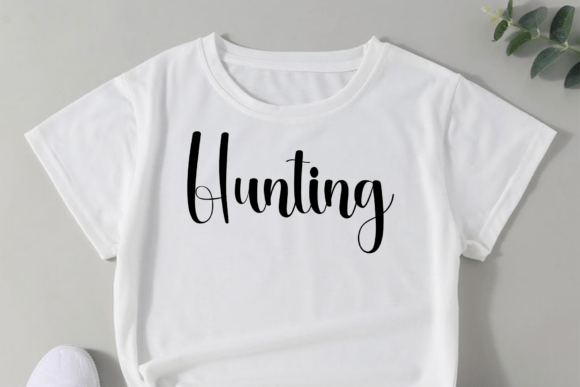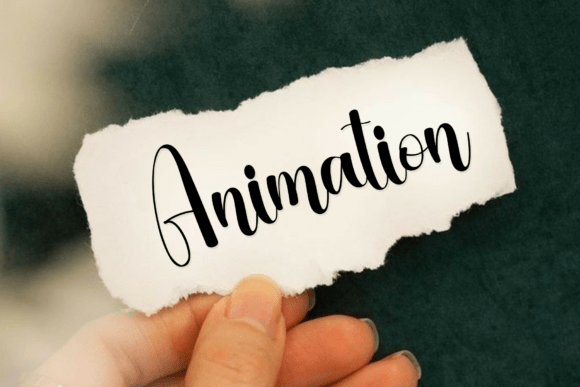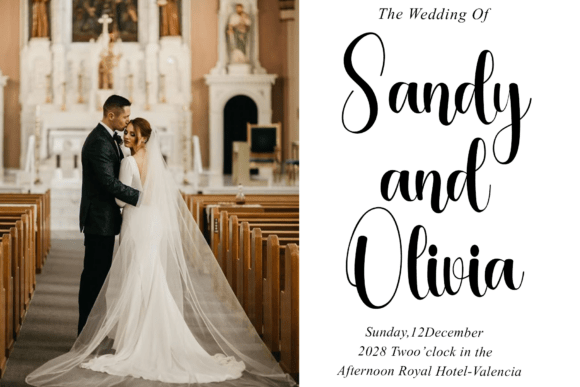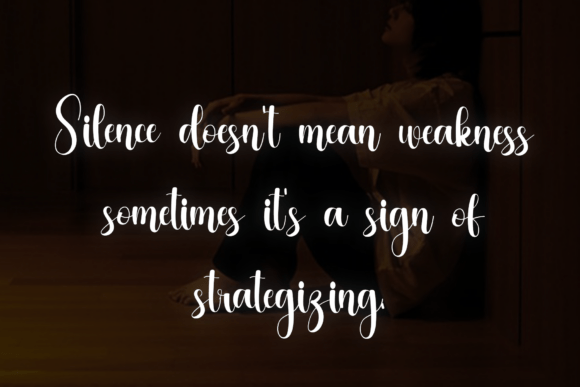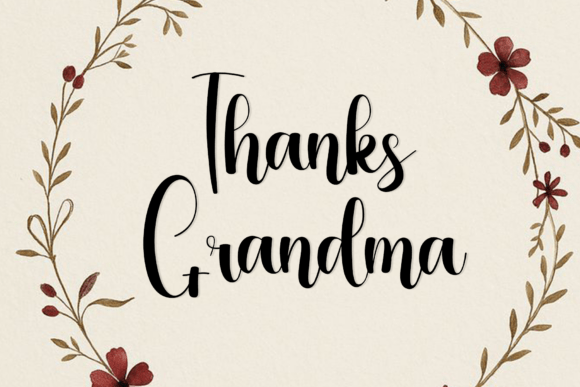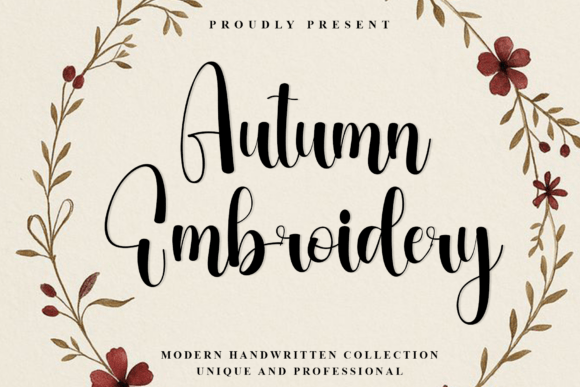
Introducing Autumn Embroidery Font: Elevate Your Designs with Elegance
Are you searching for a font that exudes sophistication, elegance, and a touch of luxury? Look no further than the Autumn Embroidery Font, a beautifully flowing and modern handwritten script font. Its smooth, generous curves and graceful, elongated strokes give it a signature look that’s perfect for designers and crafters seeking to add a personal touch to their projects.
What Makes Autumn Embroidery Font Stand Out?
Autumn Embroidery Font is a professional and unique typeface that offers a sweeping, authentic, and naturally luxurious feel. Its distinctive characteristics make it an ideal choice for various design applications, including:
• Personal branding: Create a lasting impression with a font that reflects your personality and style.
• Photography watermarks: Add a touch of elegance to your photos with a sophisticated and eye-catching watermark.
• Luxury wedding stationery: Make your wedding invitations, programs, and other stationery truly unforgettable with this beautiful font.
• Editorial design: Elevate your magazine, book, or newspaper designs with a font that commands attention and exudes refinement.
The Benefits of Using Autumn Embroidery Font
Autumn Embroidery Font offers numerous benefits that make it a valuable addition to your design toolkit:
• Versatility: This font is suitable for a wide range of design projects, from digital to print.
• Elegance: Its smooth curves and elongated strokes create a sophisticated and luxurious feel.
• Uniqueness: Stand out from the crowd with a font that’s both modern and distinctive.
• Easy to read: Despite its elegant and cursive nature, Autumn Embroidery Font remains highly legible.
Design Inspiration with Autumn Embroidery Font
Autumn Embroidery Font is perfect for designers and crafters seeking inspiration for their next project. Here are a few ideas to get you started:
• Create a stunning wedding invitation suite with Autumn Embroidery Font as the centerpiece.
• Design a beautiful photography portfolio with elegant watermarks and typography.
• Develop a luxury brand identity with a custom logo and typography featuring Autumn Embroidery Font.
• Elevate your editorial designs with a sophisticated font that complements your content.
Tips for Using Autumn Embroidery Font Effectively
To get the most out of Autumn Embroidery Font, follow these expert tips:
• Pair it with contrasting fonts: Combine Autumn Embroidery Font with a clean, sans-serif font to create visual interest.
• Experiment with colors: Try pairing the font with rich, autumnal colors to enhance its luxurious feel.
• Pay attention to spacing: Adjust the font’s spacing to create a sense of flow and harmony.
• Use it sparingly: Balance Autumn Embroidery Font with other design elements to avoid overwhelming the viewer.
Autumn Embroidery Font is a beautiful and elegant modern handwritten script font that’s perfect for designers and crafters seeking to add a touch of sophistication to their projects. With its smooth curves, generous strokes, and luxurious feel, this font is sure to elevate your designs and leave a lasting impression. Whether you’re working on personal branding, wedding stationery, or editorial design, Autumn Embroidery Font is an excellent choice.